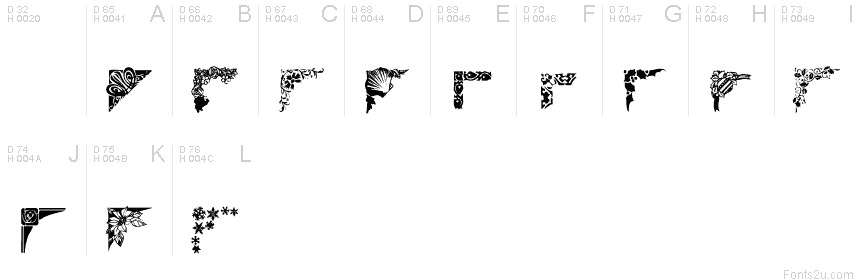
Corners 1 by Helen Duggan is a free floral corner dingbat font built from curling vines, pointed leaves, and bold blossoms. Its dense ornament tapers into fine, sweeping tendrils. The shapes have a hand-cut botanical silhouette.
For wedding invitations, the foliage can frame names with a romantic, slightly dramatic flourish. The same ornamental detail also suits garden branding, seasonal packaging, and decorative publishing. Rather than serving as ordinary text, each corner can become part of a border or botanical illustration.
Corners 1